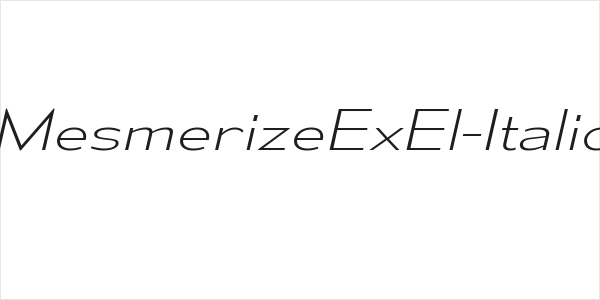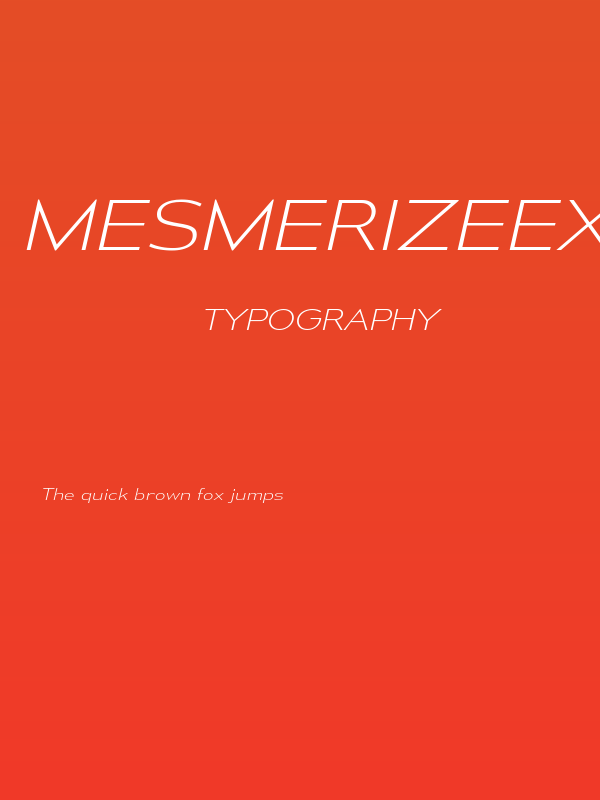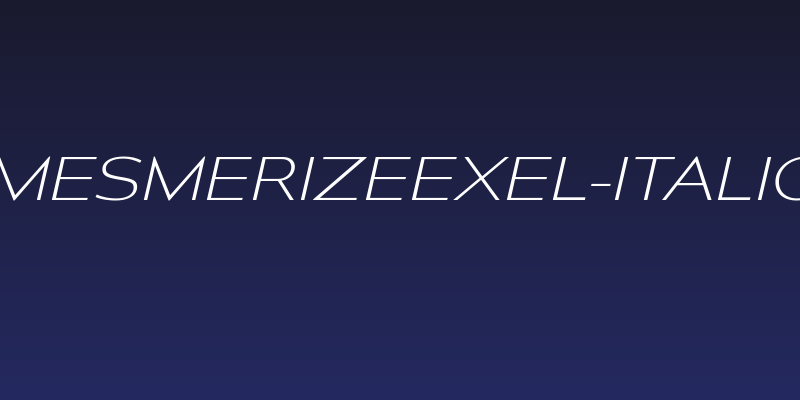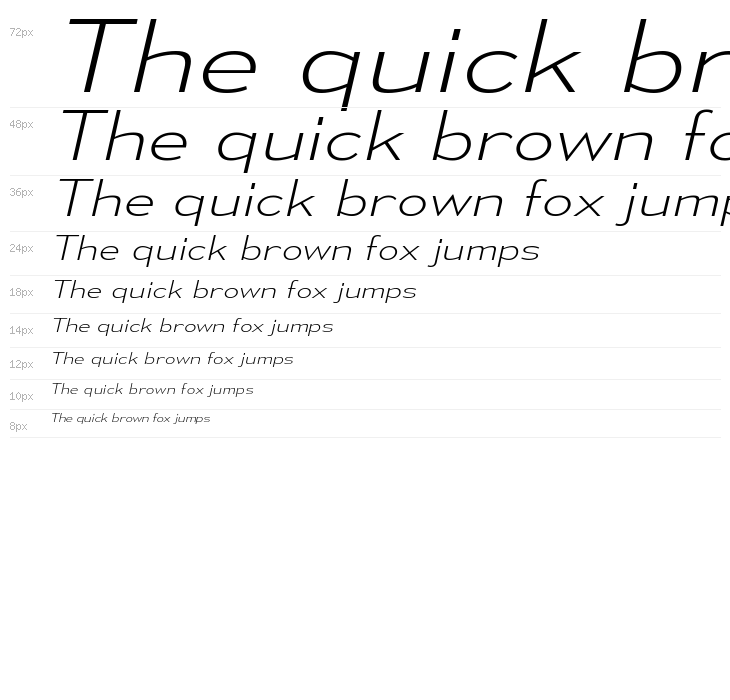
MesmerizeExEl-Italic Font
MesmerizeExEl-Italic Description
This font features a sleek and modern design with a distinctly italicized style, giving it a dynamic and forward-leaning appearance. The characters are elegantly elongated, with smooth curves and sharp angles that create a sense of motion and sophistication. The uppercase letters are tall and commanding, while the lowercase letters maintain a consistent flow, enhancing readability. Numbers are clear and balanced, matching the overall aesthetic. Special characters are designed with the same attention to detail, ensuring uniformity across the font. The thin strokes and minimal contrast contribute to a clean and contemporary look, making it suitable for various design applications.
| Use Case | Headlines, Logos, Editorial design |
| Proposed Projects | Ideal for branding, editorial design, and modern web interfaces where a touch of elegance and dynamism is desired. |